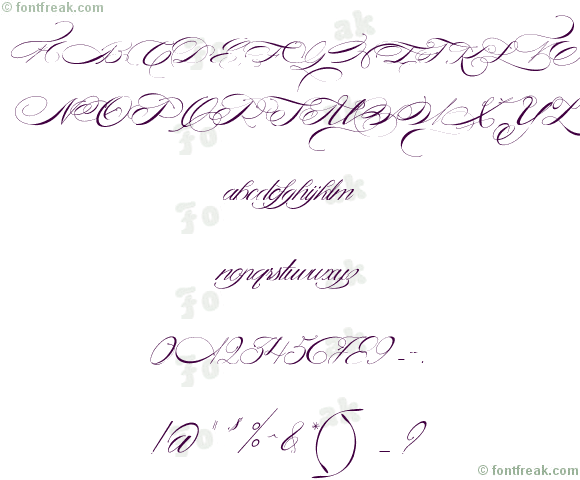
Fontaine de Diamant
About Fontaine de Diamant
Fontaine de Diamant, designed by Agathe M. Joyce, is an exquisite script font that embodies elegance and sophistication. This font features gracefully flowing strokes, with a delicate balance between thick and thin lines that create a stunning visual contrast. The intricate detailing and decorative swirls add a touch of artistry, making each letter a work of art in itself. The overall spacing is carefully considered, providing a harmonious flow that enhances readability while maintaining a luxurious appearance.
This font is particularly well-suited for a variety of creative applications. It shines in wedding invitations, where its romantic flair can set the perfect tone for a special day. Additionally, it works beautifully for upscale restaurant menus, allowing establishments to convey a sense of refinement and style. Graphic designers will find it ideal for branding projects that require a sophisticated touch, such as logos for boutique shops or artisanal products. Moreover, Fontaine de Diamant is an excellent choice for greeting cards, where its charm can elevate any personal message.
In summary, Fontaine de Diamant font free download offers a unique blend of sophistication and artistic flair, making it a standout choice for anyone looking to elevate their design work. With its intricate details and versatile applications, this font will not only enhance your projects but also leave a lasting impression on your audience.